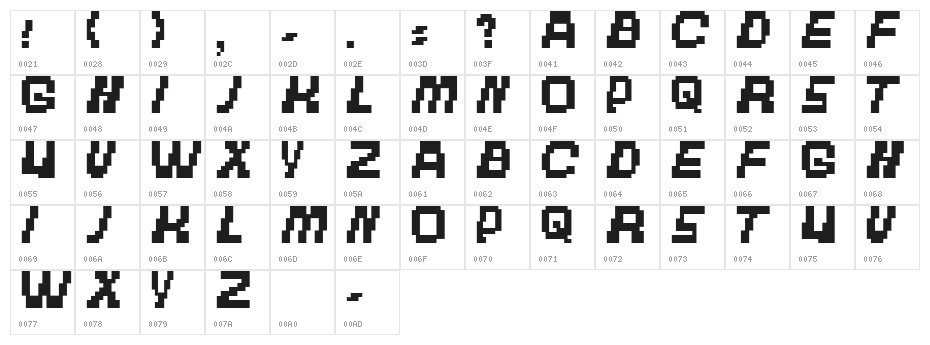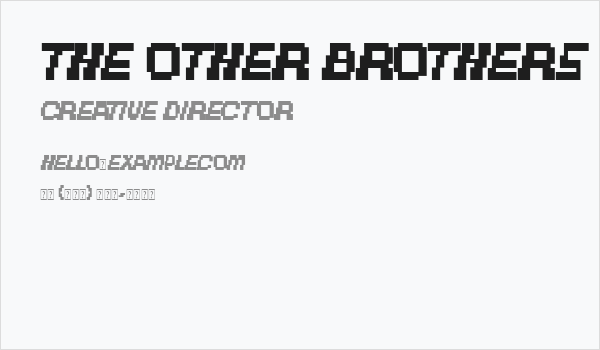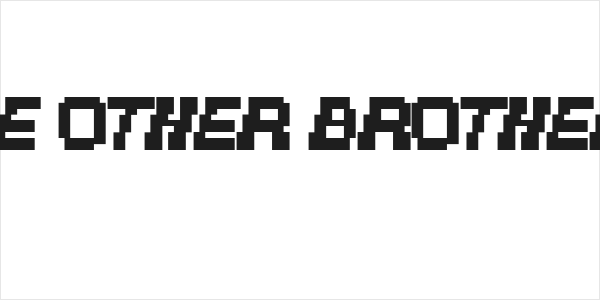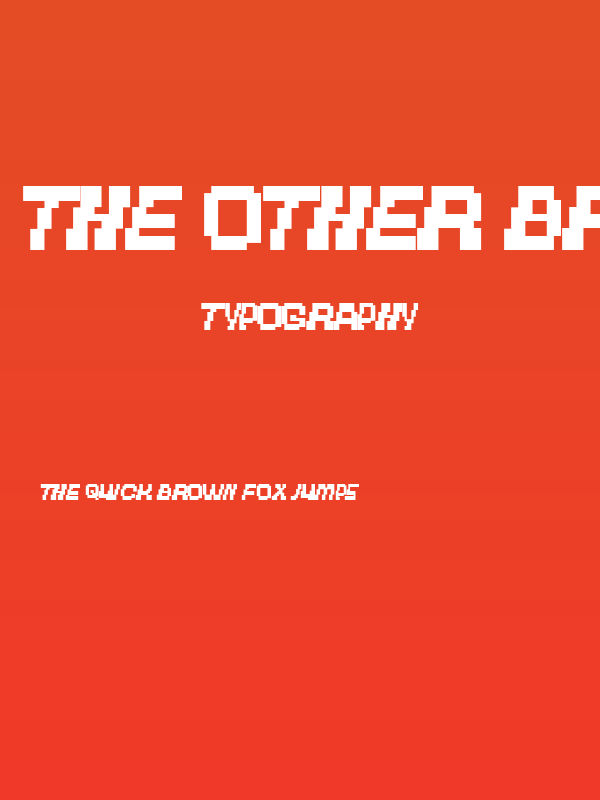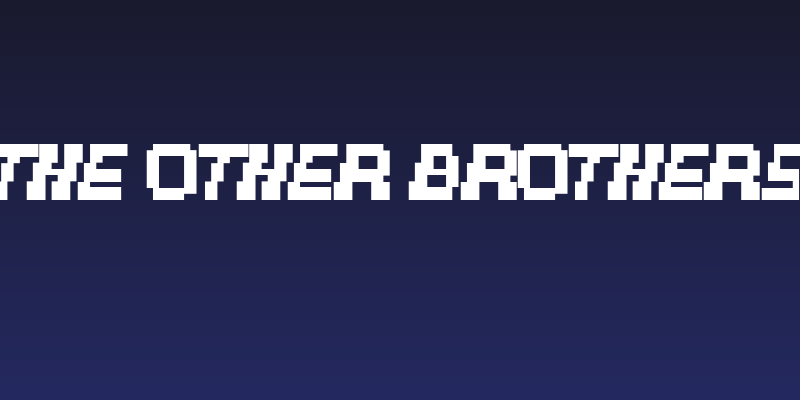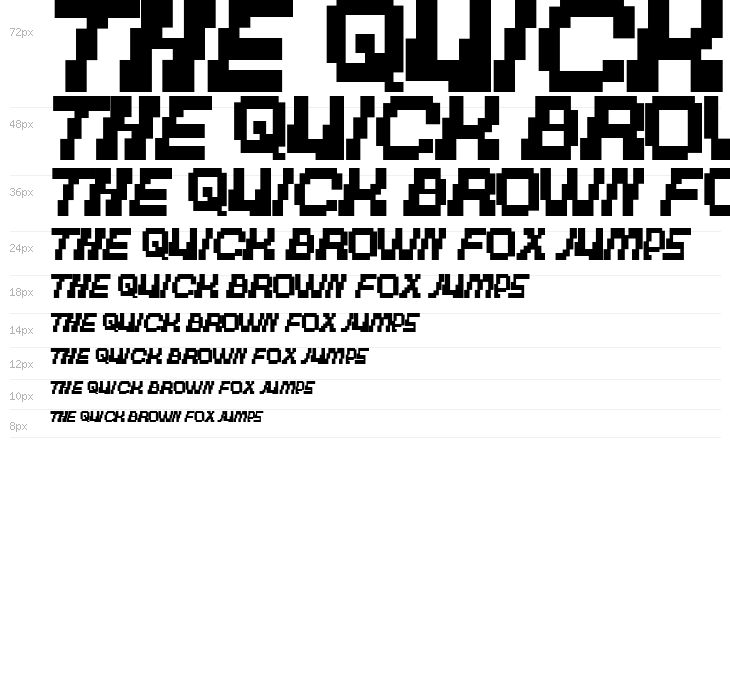
The Other Brothers Font
The Other Brothers Description
This font features a bold, pixelated style reminiscent of classic arcade games and retro digital displays. Each character is constructed with a blocky, grid-like appearance, giving it a distinctly digital and nostalgic feel. The uniformity in height and width across characters ensures a cohesive look, while the sharp angles and straight lines enhance its geometric aesthetic. This font is ideal for projects that aim to evoke a sense of nostalgia or pay homage to the early days of digital technology. Its unique style makes it stand out, making it suitable for eye-catching headlines or creative design projects.
| Overall Style | Retro, Digital |
| Proposed Projects | Ideal for video game designs, retro-themed posters, digital art projects, and any creative work that seeks a nostalgic touch. |